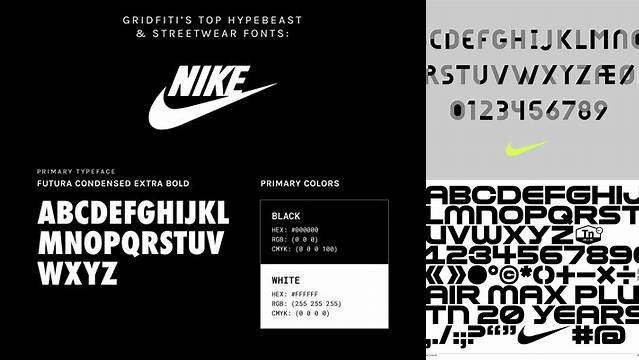
Nike Fonts: Free Downloads & Typography Inspiration
Hey font enthusiasts! Ever wondered about the iconic typography behind Nike's powerful branding? Let's dive into the world of Nike fonts, exploring everything from official typefaces to free alternatives and how you can use them in your own projects. We'll cover the history, the inspiration, and where you can find similar fonts to capture that athletic and dynamic vibe. Get ready to level up your design game!
Nike's Official Font
So, you're probably wondering, what's the official Nike font? Well, it's not as simple as one single answer, guys. Nike has used various typefaces over the years, each contributing to its distinctive branding. One of the most recognizable is Futura, a classic geometric sans-serif font that exudes a modern and athletic feel. Futura’s clean lines and balanced proportions make it a perfect fit for Nike’s minimalist yet impactful aesthetic. The font embodies a sense of speed, efficiency, and forward motion, aligning perfectly with Nike’s brand values and its message of athletic achievement. Nike's strategic use of Futura demonstrates the power of typography in shaping brand perception. By selecting a font that complements its overall marketing strategy, Nike has created a cohesive and recognizable brand identity that resonates with consumers worldwide. The font's versatility makes it suitable for a variety of applications, from print materials to digital platforms, allowing Nike to maintain a consistent brand image across all touchpoints. The choice of Futura also reflects Nike's understanding of design trends and its commitment to staying current and relevant in a rapidly evolving marketplace. This attention to detail in font selection underscores Nike's broader dedication to quality and innovation, reinforcing its position as a leader in the athletic apparel industry. The subtle yet significant impact of typography on brand perception highlights the importance of selecting fonts that align with a company's values and strategic goals. For Nike, Futura serves as a powerful visual tool that communicates its core message of athleticism, innovation, and excellence. Using the right typography not only enhances brand recognition but also strengthens the emotional connection with customers, making them feel a part of the Nike community. It's like wearing the swoosh – the font itself becomes a symbol of quality and performance.
History of Nike's Typography
The history of Nike's typography is a fascinating journey through design trends and branding evolution. Over the years, Nike has experimented with various typefaces to reflect its dynamic and forward-thinking ethos. From its early days to its current global dominance, the font choices have played a crucial role in shaping Nike's identity. Initially, the brand utilized simpler, more straightforward fonts that were common in the athletic industry at the time. However, as Nike grew, its typographic choices became more refined and strategic. The adoption of Futura was a pivotal moment, marking a shift towards a more modern and geometric aesthetic. This font, with its clean lines and contemporary feel, perfectly captured Nike's spirit of innovation and speed. Futura became synonymous with Nike's branding, appearing in logos, advertisements, and product packaging. The evolution of Nike fonts also reflects the brand's willingness to adapt and stay ahead of the curve. As design trends changed, Nike incorporated new typefaces into its marketing materials while still maintaining a consistent and recognizable brand image. This balance between tradition and innovation is a key aspect of Nike's success. Exploring the history of Nike's fonts reveals a thoughtful and deliberate approach to typography, where each font choice is carefully considered to reinforce the brand's message and appeal to its target audience. The brand’s typography choices have not only enhanced its visual identity but have also contributed to its global recognition and success. The journey through Nike's typographic history showcases the brand's evolution and its commitment to staying at the forefront of design and innovation. Understanding this history provides valuable insights into the brand's strategic use of typography and its impact on consumer perception.
Key Characteristics of Nike Fonts
What makes a Nike font a Nike font? It's all about the key characteristics, guys. Think boldness, modernity, and athleticism. These fonts often feature clean lines, geometric shapes, and a sense of forward motion. They exude confidence and power, reflecting the spirit of sports and competition. The key characteristics of Nike fonts contribute significantly to the brand's overall identity and appeal. The fonts chosen by Nike are not just aesthetically pleasing; they also convey specific messages and emotions. For instance, the use of bold typefaces communicates strength and authority, while the clean lines and geometric shapes evoke a sense of precision and efficiency. These characteristics align perfectly with Nike's brand values and its commitment to performance and innovation. Another important aspect of Nike fonts is their versatility. They need to work well in a variety of contexts, from print advertisements to digital platforms, and from product packaging to social media campaigns. This versatility is achieved through careful selection and adaptation of typefaces to ensure they remain legible and impactful across different media. The choice of a Nike font also reflects the brand's understanding of its target audience. The fonts are designed to resonate with athletes and sports enthusiasts, conveying a sense of energy, dynamism, and determination. This emotional connection is crucial for building brand loyalty and creating a strong relationship with consumers. By carefully considering the key characteristics of its fonts, Nike has created a cohesive and recognizable visual identity that sets it apart from its competitors. The brand's commitment to quality extends to its typographic choices, reinforcing its position as a leader in the athletic apparel industry. These key characteristics are not just about aesthetics; they are about communicating the brand's core values and connecting with its audience on an emotional level. It's about making a statement that is both visually appealing and meaningful.
Futura: The Iconic Nike Font
Futura is arguably the most iconic Nike font, and for good reason. This geometric sans-serif typeface has been a staple in Nike's branding for decades, appearing in everything from logos to ad campaigns. Its clean, modern lines and strong, confident letterforms perfectly capture the spirit of athleticism and innovation. Futura has been a consistent presence in Nike's visual identity, contributing to the brand's overall recognition and success. The choice of Futura reflects Nike's commitment to timeless design and its ability to stay ahead of trends. The font's geometric structure and minimalist aesthetic align perfectly with Nike's brand values and its message of performance and style. Its versatility also makes it an ideal choice for a wide range of applications, from print to digital media. The use of Futura in Nike's branding has helped to create a cohesive and recognizable visual identity. The font's strong presence in logos, advertisements, and product packaging reinforces the brand's message and enhances its appeal to consumers. Futura is more than just a font; it's a symbol of Nike's commitment to excellence and its dedication to pushing boundaries. The font's clean and modern appearance communicates a sense of precision and efficiency, while its bold letterforms convey strength and confidence. These qualities resonate with athletes and sports enthusiasts, making Futura a natural fit for the Nike brand. The enduring popularity of Futura as a Nike font is a testament to its timeless design and its ability to capture the essence of the brand. Its continued use in Nike's marketing materials reflects the brand's commitment to consistency and its understanding of the power of typography in shaping brand perception. Futura's legacy as a key element of Nike's visual identity is firmly established, and its influence on the brand's success cannot be overstated.
Free Alternatives to Nike Fonts
Okay, so you love the Nike font look but don't want to break the bank? No worries, guys! There are plenty of free alternatives out there that capture a similar vibe. Think geometric sans-serifs with clean lines and a modern feel. Fonts like Montserrat, Lato, and Open Sans are excellent choices. These free alternatives offer a similar aesthetic to the fonts used by Nike, allowing you to create designs that capture the brand's spirit without the cost. The key is to look for fonts that share the same core characteristics: boldness, modernity, and athleticism. When searching for free alternatives, it's important to consider the specific project you're working on. Some fonts may be better suited for headlines, while others are more legible in body text. Experimenting with different fonts is a great way to find the perfect fit for your design. Using free alternatives to Nike fonts can be a smart way to achieve a similar look while staying within budget. These fonts are often available for commercial use, making them a great option for businesses and individuals alike. The availability of free alternatives also democratizes design, allowing more people to create visually appealing materials without the need for expensive font licenses. However, it's important to ensure that the fonts you choose are high-quality and well-designed. A poorly designed font can detract from the overall impact of your project, so it's worth spending time to find the best options. By exploring the world of free alternatives, you can discover a wide range of fonts that capture the essence of Nike fonts and help you create compelling designs.
Using Nike-Inspired Fonts in Your Designs
Now that you've got your Nike-inspired fonts, let's talk about using them in your designs! The key here is to think about the message you're trying to convey. These fonts are perfect for projects that need a bold, modern, and athletic feel. The effective use of Nike-inspired fonts in your designs can elevate your project and communicate the desired message. These fonts, characterized by their boldness, modernity, and athletic feel, are particularly well-suited for projects that require a strong and dynamic visual presence. When using Nike-inspired fonts, consider the overall aesthetic you're aiming to achieve. These fonts often work best in projects that have a clean and minimalist design, allowing the typography to take center stage. Whether you're designing a website, creating marketing materials, or working on a personal project, the thoughtful application of typography can significantly enhance the visual impact. One of the most important aspects of using Nike-inspired fonts is ensuring readability. While these fonts are visually striking, it's crucial to choose a size and weight that makes the text easy to read. Experiment with different font sizes and line heights to find the perfect balance between aesthetics and functionality. Furthermore, the context in which you use the font matters significantly. For instance, using a Nike-inspired font in a sports-related project can immediately evoke a sense of energy and dynamism. However, the same font might not be suitable for a more formal or traditional setting. Understanding the nuances of font selection is key to creating a design that is both visually appealing and effective in its communication. The versatility of Nike-inspired fonts also makes them suitable for a wide range of applications. From headlines and logos to body text and captions, these fonts can be adapted to fit various design needs. However, it's important to use them judiciously and avoid overcrowding your design with too many different typefaces. A cohesive and consistent typographic approach will help create a polished and professional look.
Nike Font Pairing Suggestions
Font pairing is an art, guys! When working with Nike-inspired fonts, you want to choose complementary typefaces that enhance the overall design. Think about pairing a bold sans-serif with a lighter weight sans-serif or even a clean serif for body text. Effective font pairing is a crucial aspect of design, particularly when working with Nike-inspired fonts. Choosing complementary typefaces can elevate the overall design and enhance the visual impact of your project. The goal is to create a harmonious balance between different fonts, ensuring that they work together to convey the desired message. When pairing a bold, Nike-inspired font with other typefaces, consider the contrast and hierarchy you want to establish. Pairing a bold sans-serif with a lighter weight sans-serif, for instance, can create a visually striking yet balanced composition. This approach allows the headline to stand out while maintaining readability in the body text. Another effective strategy is to pair a Nike-inspired font with a clean serif typeface for body text. This combination can bring a touch of elegance and sophistication to your design, while still maintaining a modern and athletic feel. The contrast between the sans-serif and serif fonts can add visual interest and make the text more engaging. However, it's essential to avoid using too many different fonts in a single design. Sticking to a maximum of two or three typefaces will help maintain a cohesive and professional look. Overcrowding your design with too many fonts can create visual clutter and detract from the overall impact. When selecting fonts for pairing, consider the specific context of your project. A font that works well in a sports-related design might not be suitable for a more formal or corporate setting. Understanding the nuances of font selection and pairing is key to creating designs that are both visually appealing and effective in their communication. By carefully considering the relationships between different typefaces, you can create a typographic hierarchy that guides the reader's eye and enhances the overall impact of your design.
Typography Trends Inspired by Nike
Nike's influence extends far beyond the athletic world; it's also shaped typography trends! The brand's use of bold, geometric sans-serifs has inspired a wave of designers to embrace clean, modern typefaces. This influence highlights the brand’s significant contribution to the field of graphic design and its ability to set trends that resonate across various industries. Nike’s typography choices have not only defined its own brand identity but have also influenced broader design aesthetics. The brand’s preference for bold, geometric sans-serif fonts has popularized these styles, making them a staple in contemporary design. These fonts, characterized by their clean lines and minimalist appearance, convey a sense of modernity, athleticism, and efficiency, aligning perfectly with the brand’s message of performance and innovation. The impact of Nike on typography trends can be seen in the widespread adoption of similar font styles in various design projects. From websites and marketing materials to logos and product packaging, geometric sans-serifs have become a go-to choice for designers seeking to create a contemporary and impactful look. This trend reflects the enduring appeal of Nike’s typographic choices and their ability to resonate with a wide audience. The brand’s influence extends beyond specific font styles to broader design principles. Nike’s emphasis on clean lines, minimalist aesthetics, and bold typography has inspired designers to embrace a more streamlined and impactful approach to visual communication. This focus on clarity and simplicity has become a hallmark of modern design, reflecting a shift towards more direct and effective messaging. The ability of Nike to shape typography trends underscores the power of branding in influencing design aesthetics. By consistently using specific font styles and design principles, Nike has created a visual identity that is both recognizable and influential. This consistency has not only strengthened the brand’s image but has also inspired designers to explore similar approaches in their own work. Understanding the Nike-inspired typography trends can help designers stay current and create visually appealing projects that resonate with contemporary audiences. By embracing the clean, modern aesthetic popularized by Nike, designers can create impactful designs that convey a sense of energy, dynamism, and innovation.
Resources for Learning More About Typography
Want to become a typography pro? Awesome! There are tons of resources for learning more about typography out there. Online courses, books, blogs, and design communities can help you level up your font game. A solid understanding of typography principles enhances your ability to create visually compelling and effective designs. The abundance of resources for learning more about typography makes it accessible for anyone to deepen their knowledge and skills in this crucial design area. Online courses offer structured learning experiences, often covering a wide range of topics from the basics of typography to advanced techniques. Platforms like Coursera, Skillshare, and Udemy host numerous typography courses taught by industry experts. These courses often include video lectures, hands-on exercises, and quizzes to reinforce learning. Books are another valuable resource for learning more about typography. Classic texts like